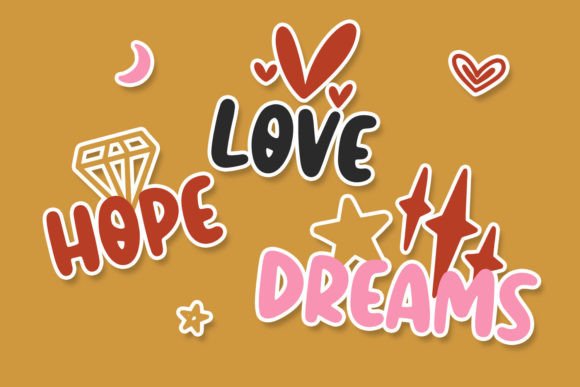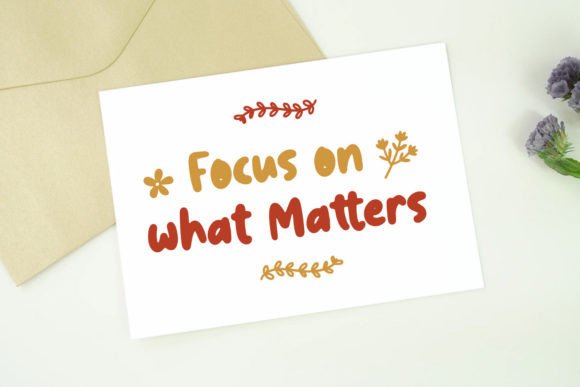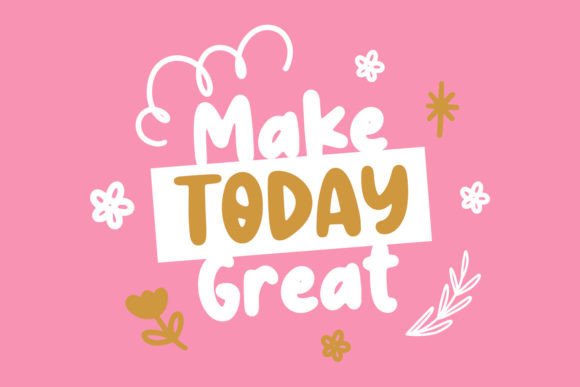
Introduction to Hoselia Quotes Font
Hoselia Quotes is a delightful display font that infuses your text with whimsy and charm.
The playful style of Hoselia Quotes brings a sense of fun and lightheartedness to your text Each letter is designed with rounded shapes, exuding a soft and friendly appearance that invites viewers to engage with your message With its fairly thick weight and low contrast, Hoselia Quotes maintains a bold presence.
Key Features of Hoselia Quotes Font
Why Choose Hoselia Quotes Font?